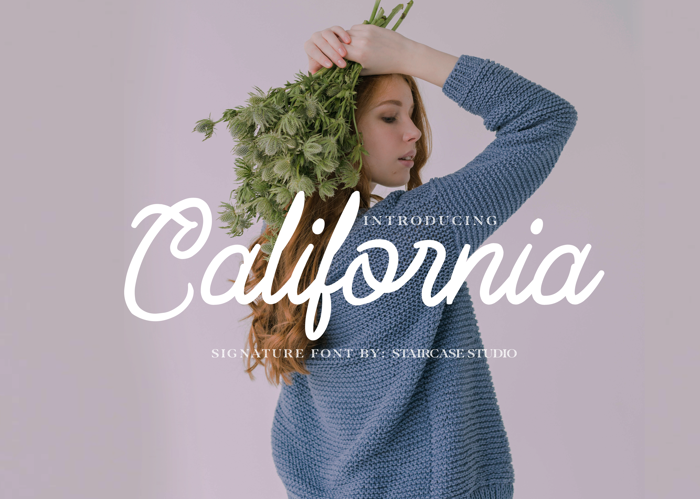
California Font
California font with new and signature modern styles. A collection of letters and numbers suitable for your projects also great for Logotype, Branding Design, Logo Design, Digital Lettering Arts, T-Shirt/Apparel, Poster, Magazine, Signs, Wedding Invitation, Birthday Invitation, Advertising Design, and any design needs.